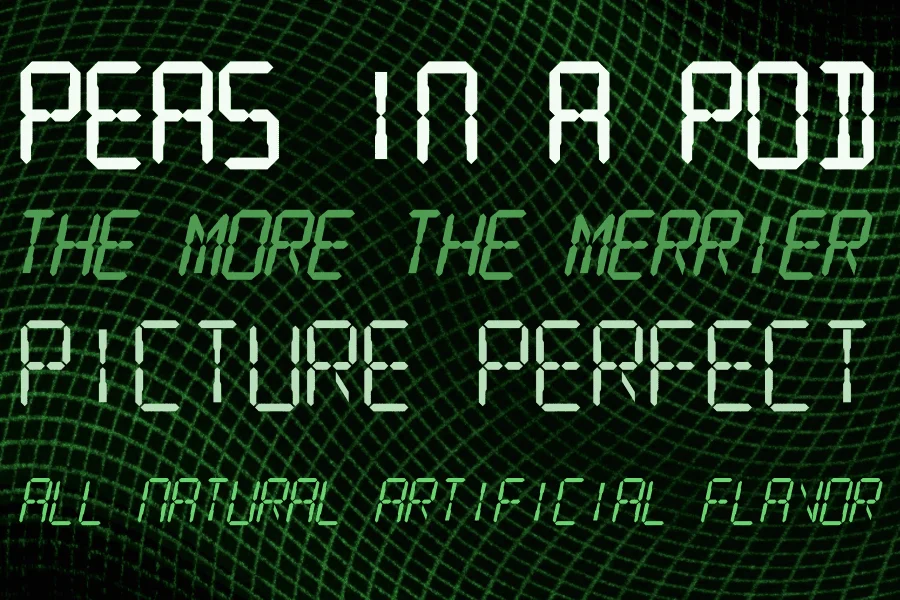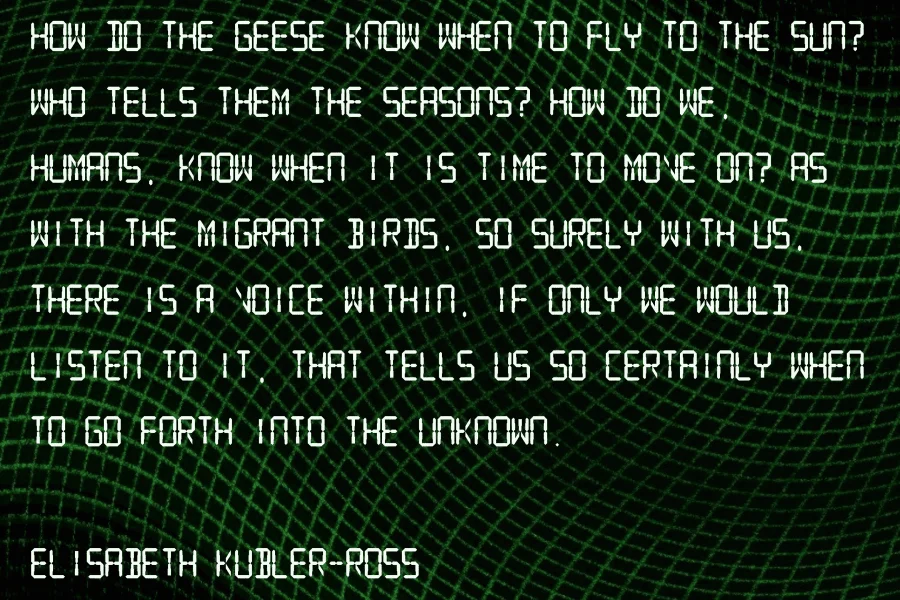
SF Digital Readout is a geometric display typeface inspired by vintage fourteen-segment alphanumeric displays and glowing electronic panels. Composed of rigid, modular strokes, its characters evoke the precise, technical aesthetic of early liquid-crystal and vacuum fluorescent screens. The design features a uniform line weight with deliberate gaps between segments, creating a highly structured and mechanical visual texture that is both nostalgic and futuristic.
SF Digital Readout is exceptionally suited for projects requiring a distinct retro, technology, or sci-fi atmosphere. It excels in digital user interfaces, video game HUDs, and electronic product packaging, channeling the classic charm of old VCRs, hi-fi stereo equipment, car radios, lab instruments, cash registers, vending machines, and industrial control panels. Whether used in its upright Roman posture or its dynamic slanted variant, it brings an authentic LED, LCD, or VFD-style readout feel to headlines, technical readouts, and thematic branding.